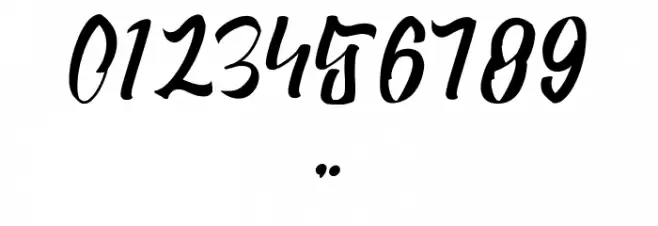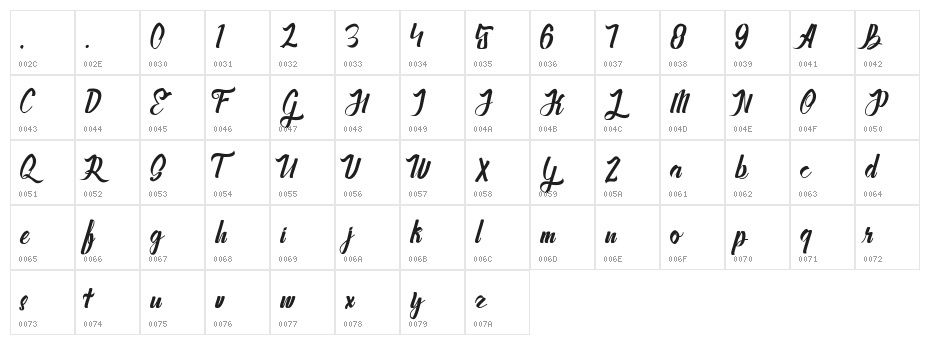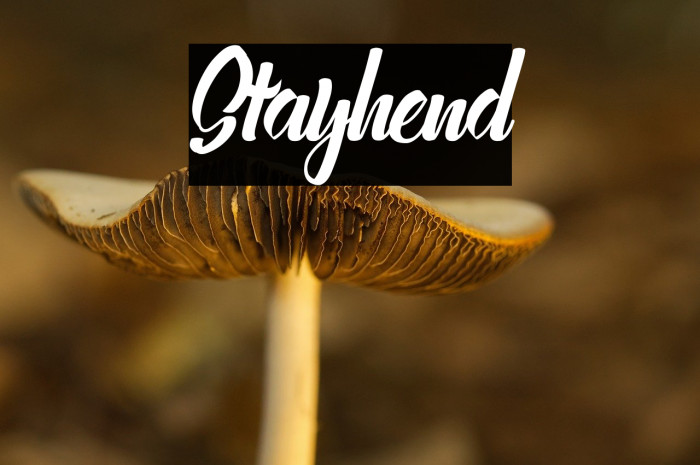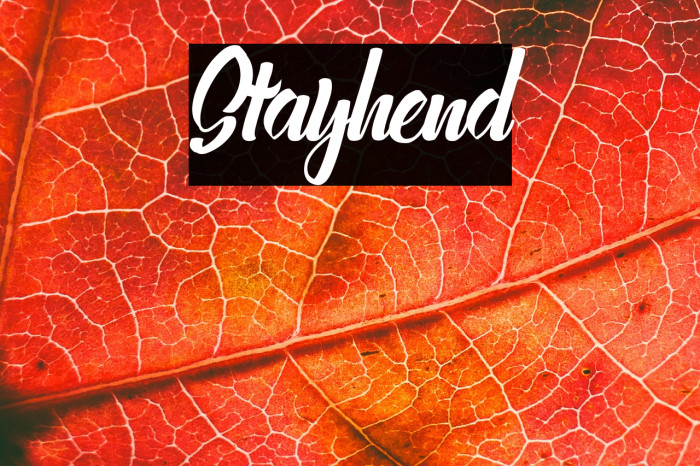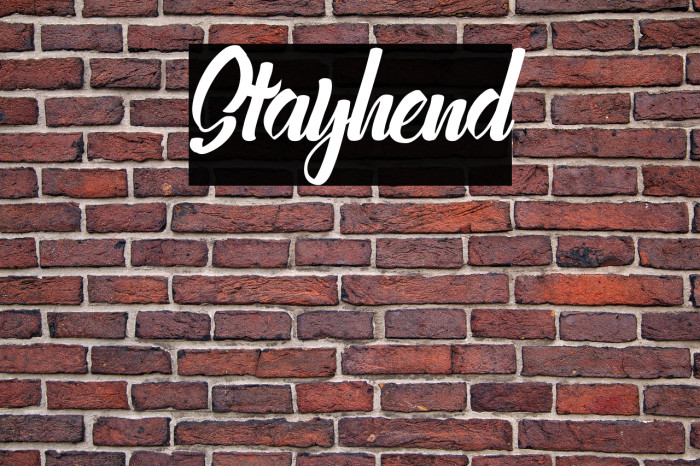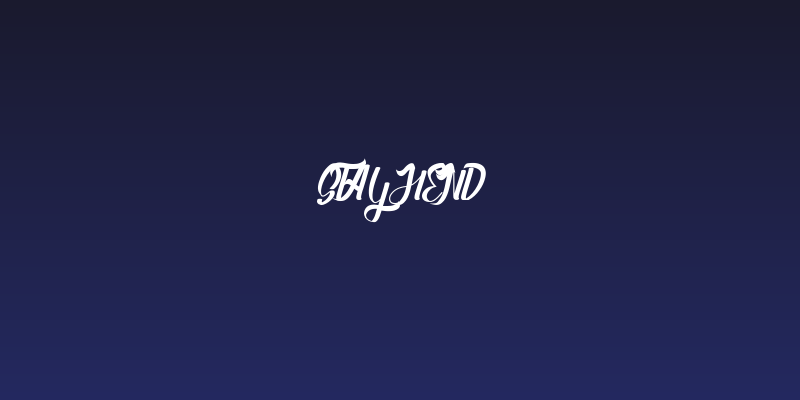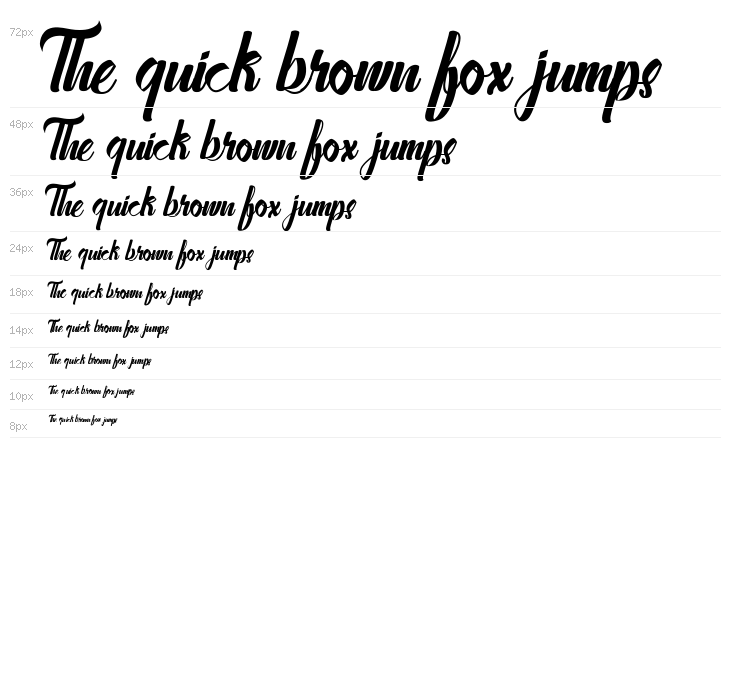
Stayhend Font
Stayhend Description
This font features a bold and flowing script style, characterized by its elegant and cursive letterforms. The uppercase letters are particularly ornate, with sweeping curves and flourishes that give a sense of movement and grace. The lowercase letters maintain a consistent style, offering a harmonious blend with the uppercase. The numerals are distinct and maintain the script style, ensuring consistency throughout. This font is ideal for projects that require a touch of sophistication and elegance, such as wedding invitations, branding, and high-end product packaging.